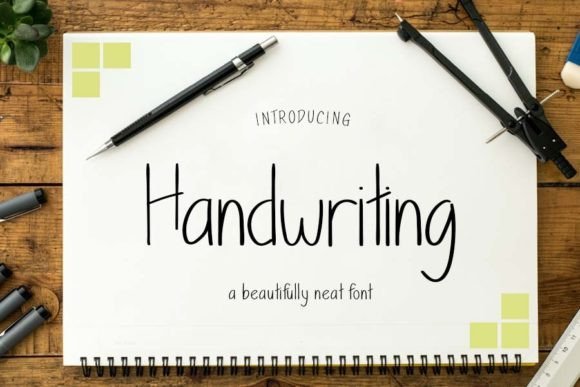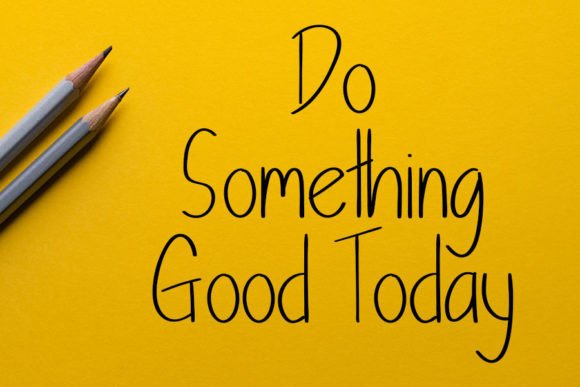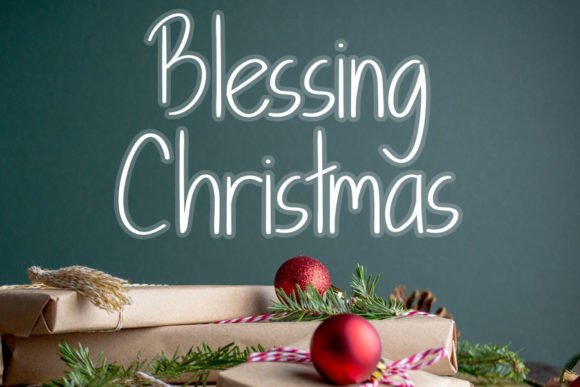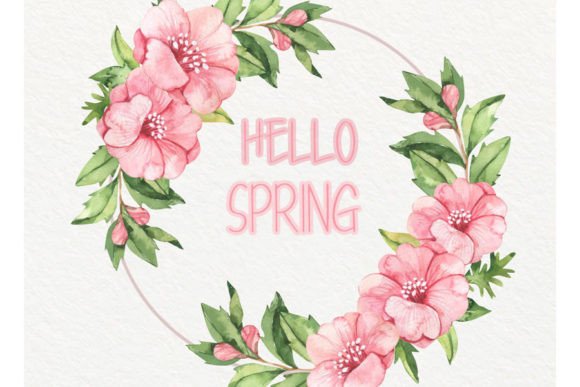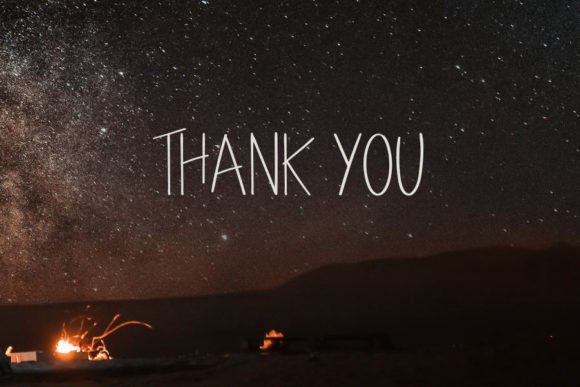
Handwriting Font
A Neat and Easy-to-Read Handwritten Font
The Handwriting Font is a neat and easy-to-read handwritten typeface designed to add a personal, charming touch to any project. Its clean lines and simple, legible design make it perfect for a variety of everyday applications. Whether you’re labeling pantries, notebooks, toy rooms, or digital notes, the Handwriting Font ensures your text is both readable and stylish, making it a versatile addition to your creative toolkit.
Perfect for Labeling and Organization
If you’re looking for a font to help you organize and label your home or office, the Handwriting Font is an excellent choice. Its legibility and neat design make it ideal for labeling items in your pantry, notebooks, or toy room. Whether you’re organizing your kitchen shelves or creating a personal labeling system, this font gives a friendly and approachable look to all your labels, making them easy to read and aesthetically pleasing.
Ideal for Digital Note-Taking
For those who are avid digital note-takers, the Handwriting Font is the perfect companion. Whether you’re writing notes on your tablet, organizing to-do lists, or drafting ideas on your computer, this font offers a clean, readable option for your digital content. Its handwritten feel gives your notes a personal touch, while its neat design ensures they are easy to read, even for longer passages of text.
Great for Craft Projects and DIY Designs
The Handwriting Font is also ideal for craft projects and DIY designs. Whether you’re working on greeting cards, scrapbooking, or personalized stationery, this font adds a handwritten charm to your creations. Its versatility makes it suitable for a wide range of projects, from birthday cards to personal notes, giving your work a personal and inviting feel.
Perfect Complementary Font for Design Projects
The Handwriting Font is an excellent complementary font for various design needs. Whether you’re creating logos, social media graphics, or website content, this font works beautifully alongside other typefaces to add a casual, friendly vibe to your designs. Its neat structure allows it to blend seamlessly with more decorative or bold fonts, making it a great choice for pairing in designs that need a bit of handwritten flair.
Legible, Simple, and User-Friendly
Despite its handwritten style, the Handwriting Font is designed to be legible and user-friendly. Its simple, clean strokes ensure that your text is easy to read, even in longer passages or when displayed at smaller sizes. Whether you’re using it for headlines, captions, or body text, this font maintains clarity and readability without compromising on its handwritten charm.
Add a Personal Touch to Your Designs with Handwriting Font
If you’re looking for a neat, easy-to-read, and versatile handwritten font for your projects, the Handwriting Font is the perfect choice. Whether you’re labeling your pantry, taking digital notes, or creating craft projects, this font adds a personal and charming touch to your work. Let the Handwriting Font be your go-to font for all your design needs and create inviting, readable projects that stand out with style.